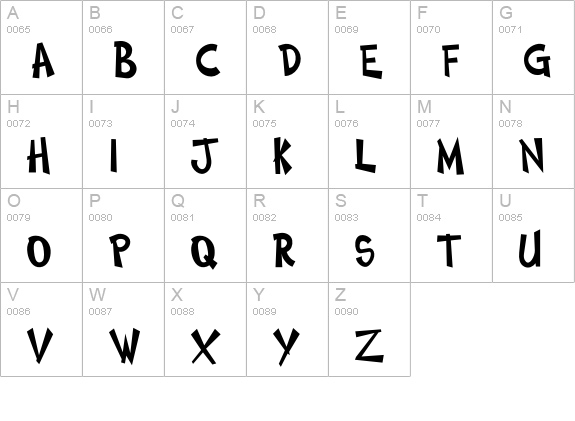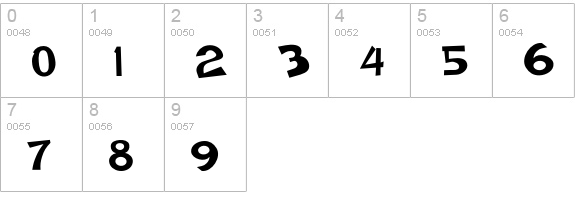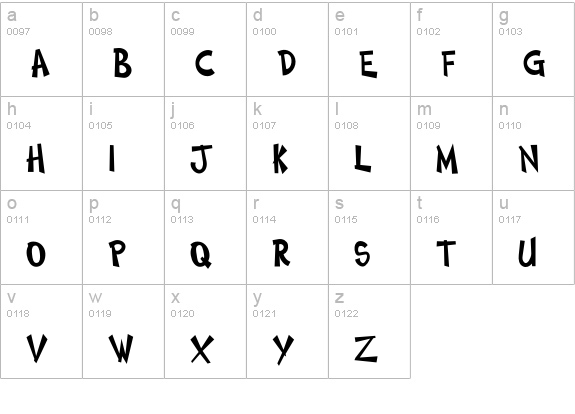
ComicBookTwo Font Details
ComicBookTwo font is a fun and playful typeface that brings a touch of comic book charm to your designs. With its bold and expressive letterforms, this font is perfect for adding a dynamic and vibrant feel to any project. Whether you're creating posters, comic strips, or social media graphics, ComicBookTwo font is sure to make your text pop. The best part? ComicBookTwo font is available for free download at FontsMarket.com. So, you can easily add this eye-catching font to your collection without breaking the bank. Don't miss out on the opportunity to enhance your designs with the lively and energetic ComicBookTwo font today!